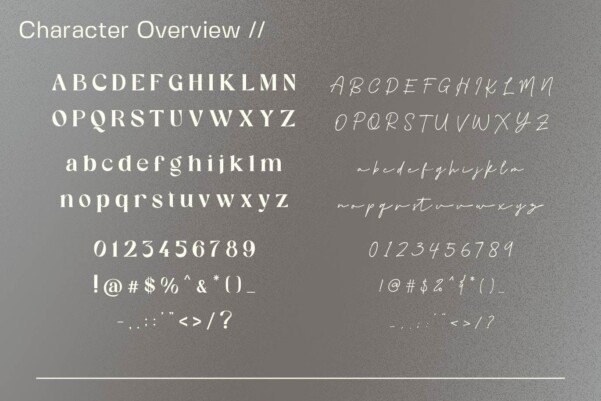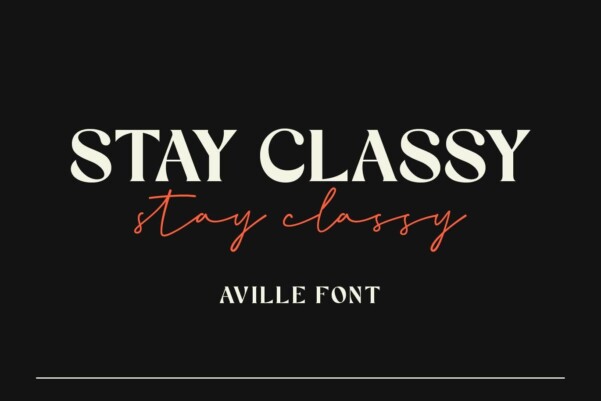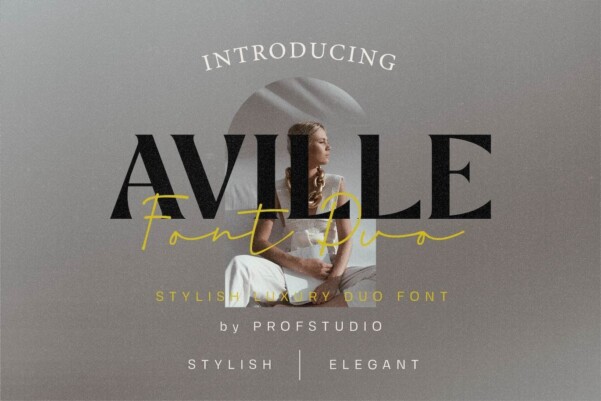
Aville Font
Aville Font – Modern Font Duo, For Your Business. Aville Regular which can be performed professionally. We make this font look elegant, luxurious, premium, modern, stylish, eye-catching and easy to use.
Aville Script is the ideal choice for creating watermark on photograph, branding, wedding event, signature or logo, quotes, album cover, magazine, business card and many others design projects. Bintangin Script is here to make your work high-level!!!!